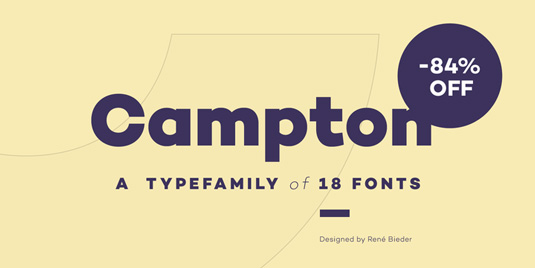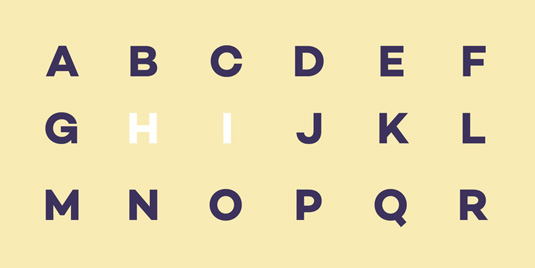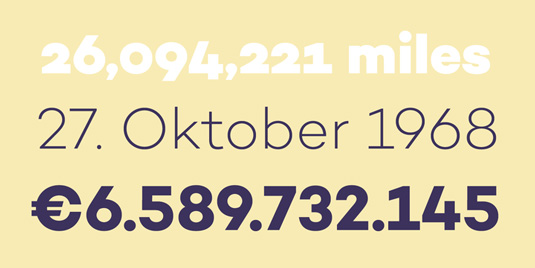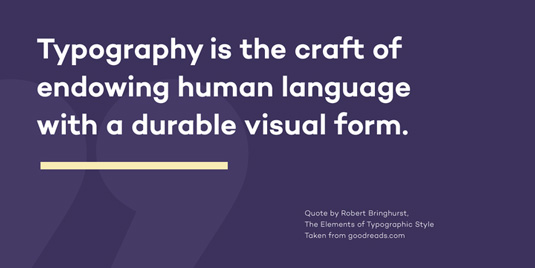
Font of the day: Campton
Campton by Rene Bieder
Campton is the latest font offering by senior designer and art director Rene Bieder. The designer comments on Behance: "Campton is a simple sans serif with a geometric skeleton, based on the mid to early twentieth century visual trend of achieving neutrality."